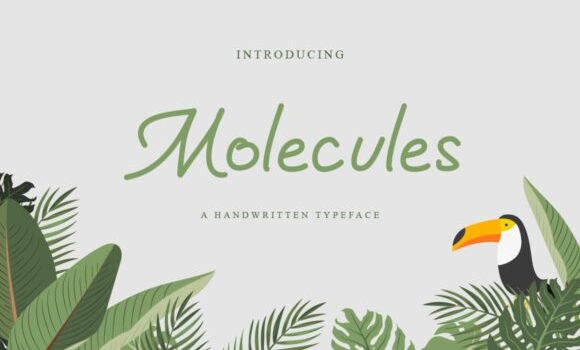
Molecules Font – Free Download Introduction to Molecules Font Molecules is an elegant script font, that features a very delicate and classy look. 📸 Preview Gallery 6 images 📌 Product Name Molecules Font 👤 Author fanastudio 📂 Category Explore ⬇️